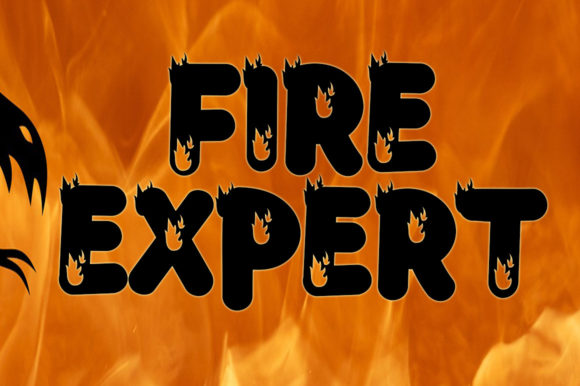
Get ready to ignite your creativity with the Fire Expert font, a masterpiece from the renowned Mr.Soon Design! Unleash the fiery passion that sparks your imagination, crafting masterpieces that sizzle with style and burn with originality.
Every stroke of this display font is a scorching dance of pixels, perfectly forged for projects that demand attention and ignite emotion. Whether you're crafting captivating art gallery labels, crafting epic sci-fi tales, or designing games that set the screen ablaze, Fire Expert is your weapon of choice.
Its fiery glyphs will ignite your designs with an inferno of inspiration, captivating your audience with their scorching charm. Dare to embrace the heat and let Fire Expert shape your next creative masterpiece into a blazing spectacle!